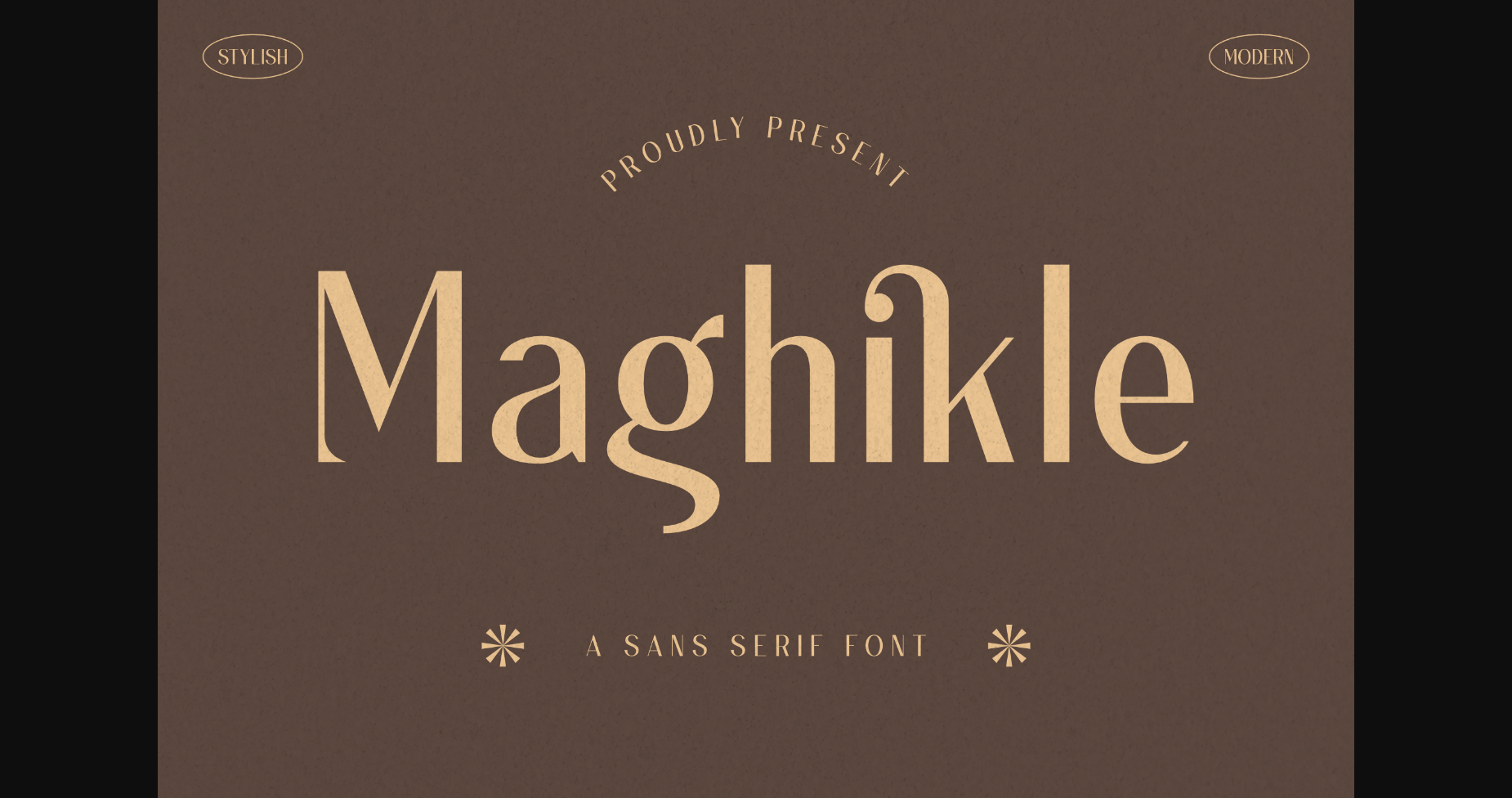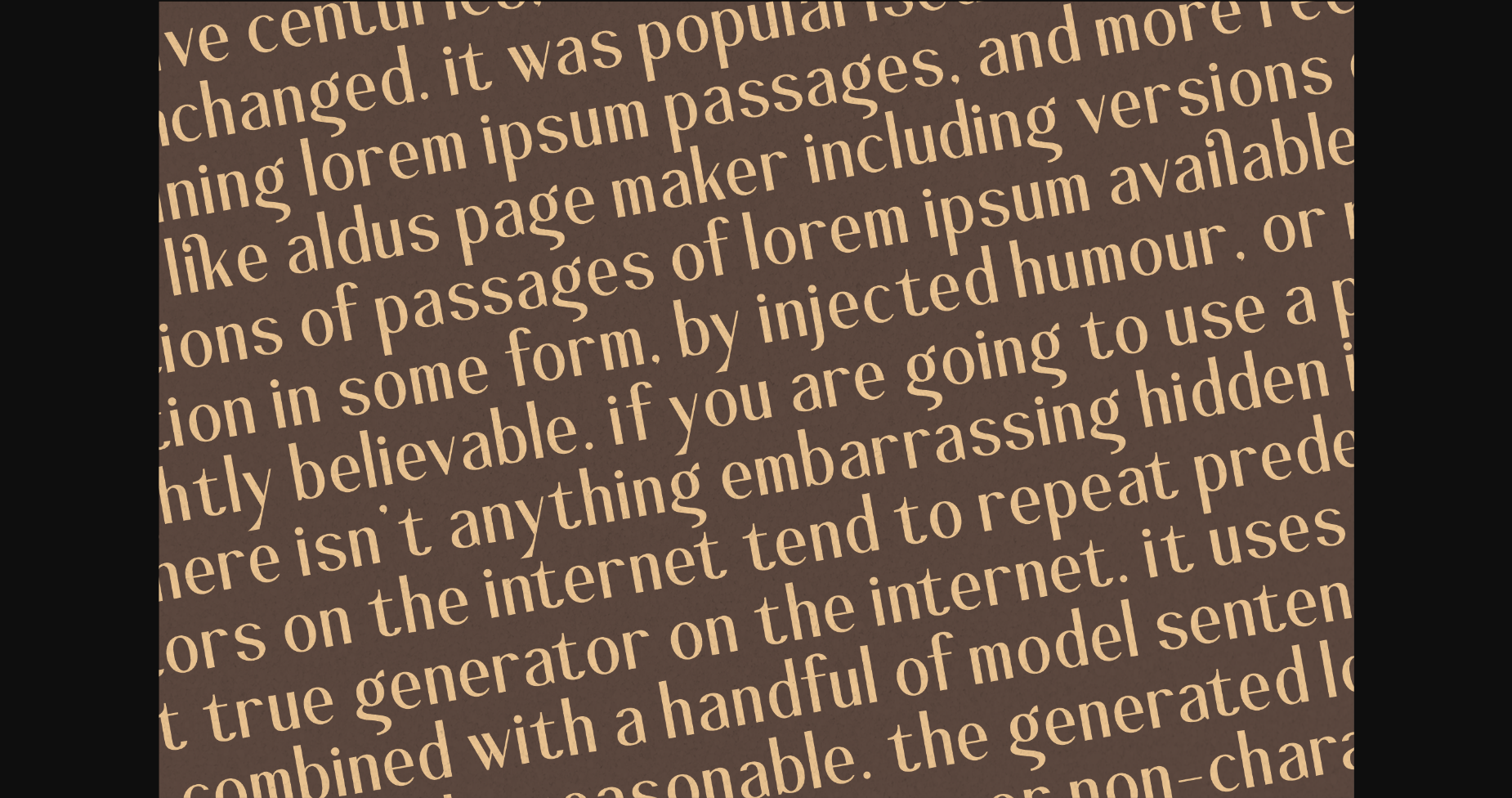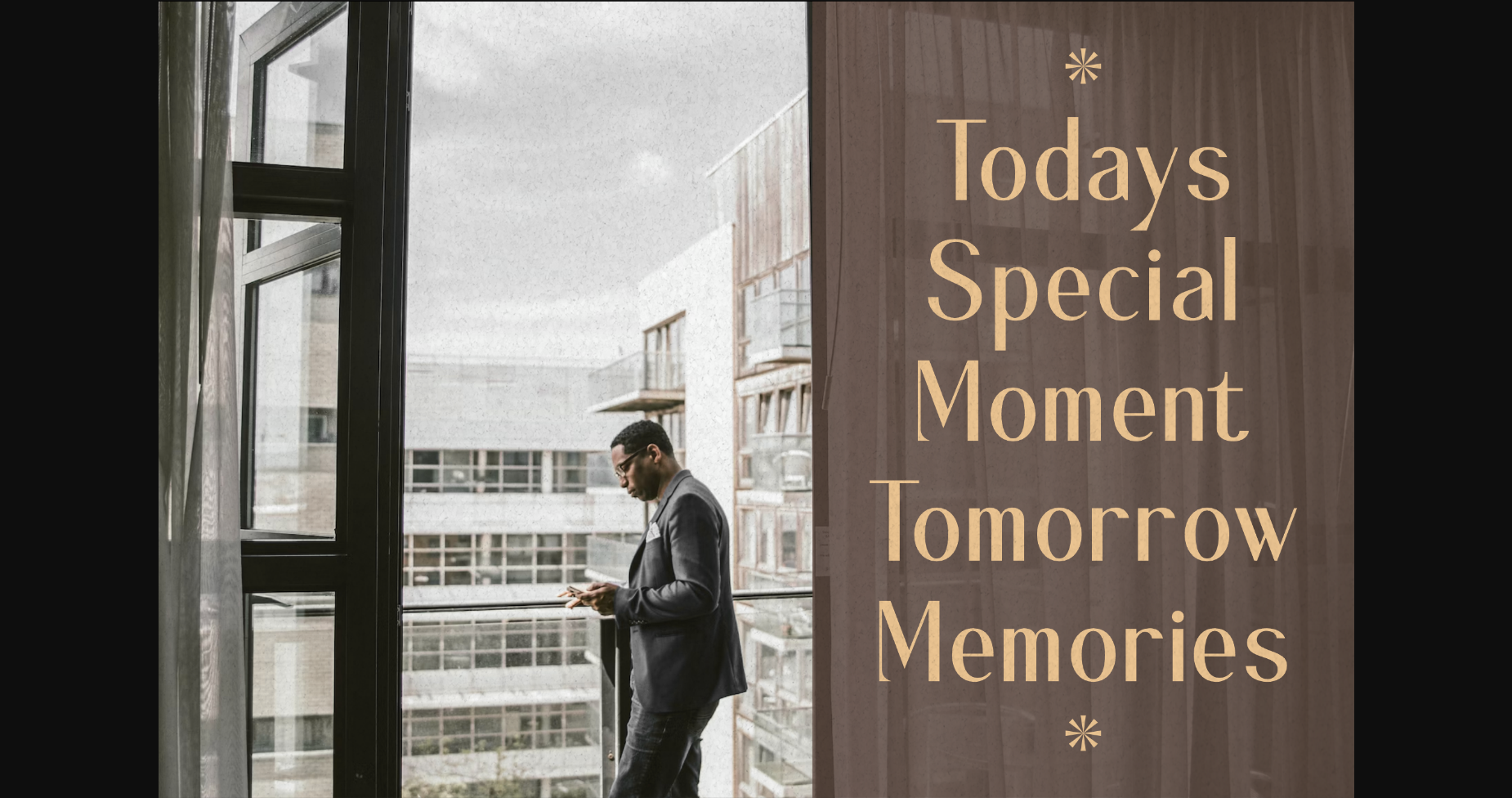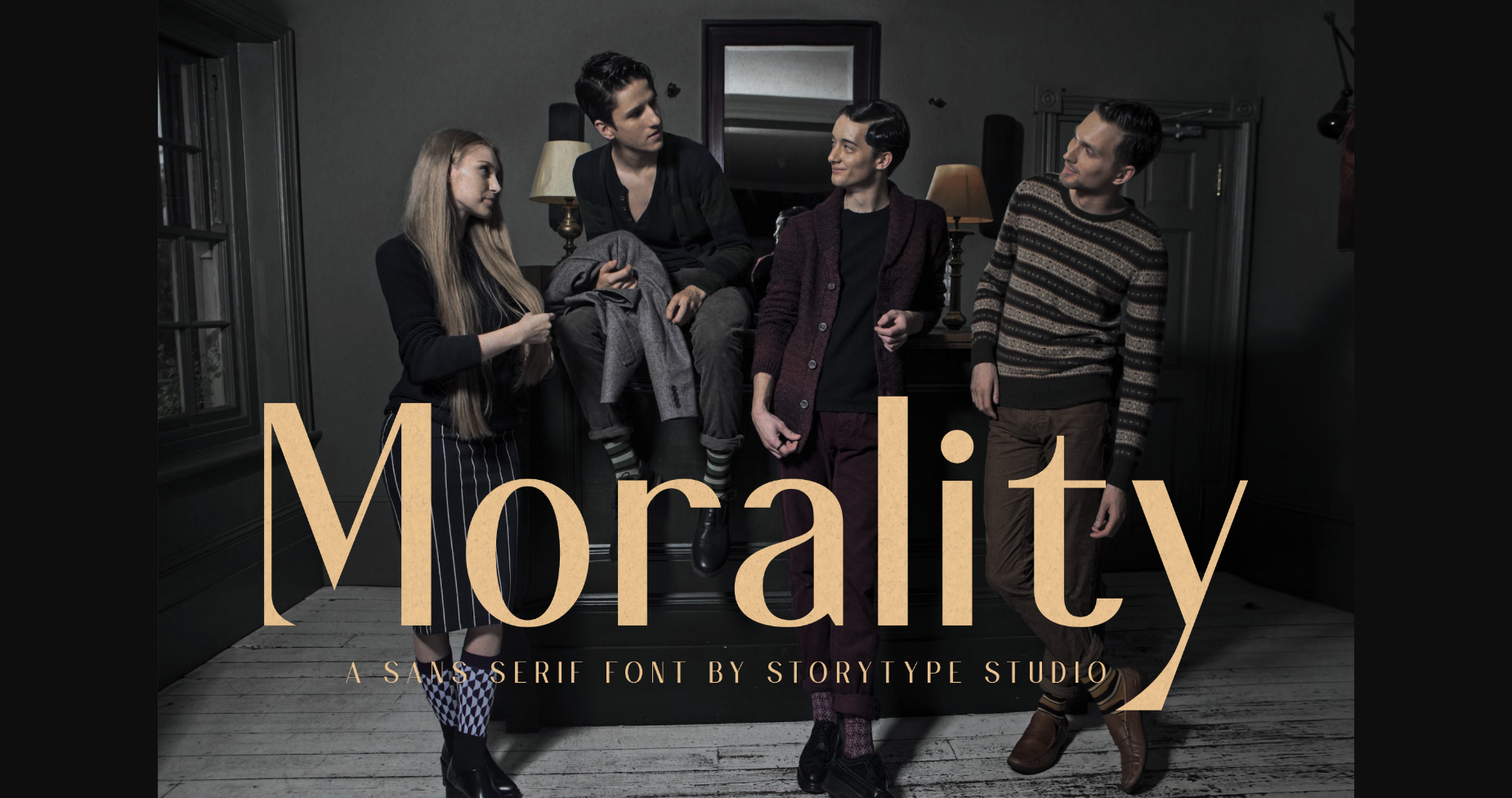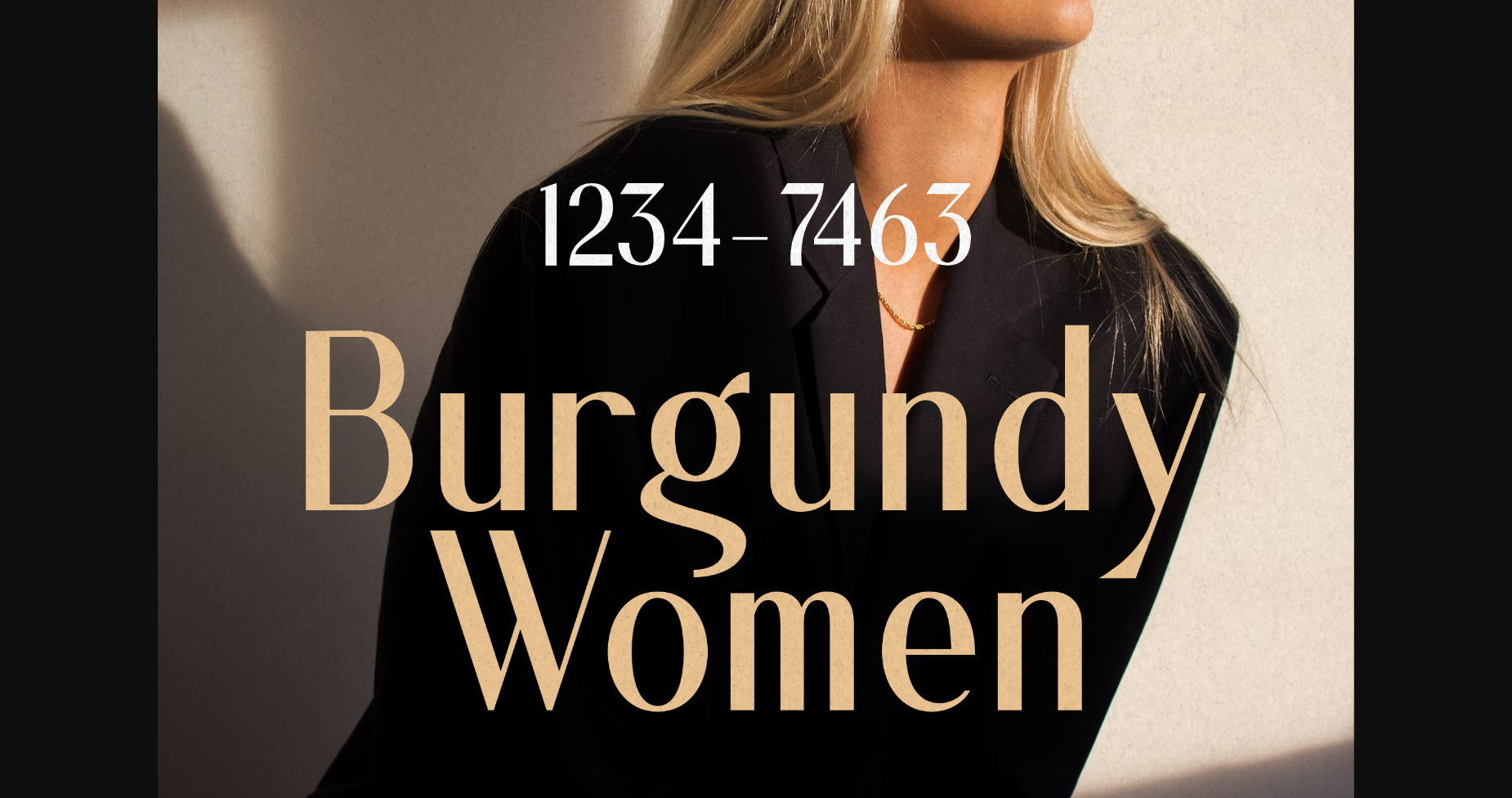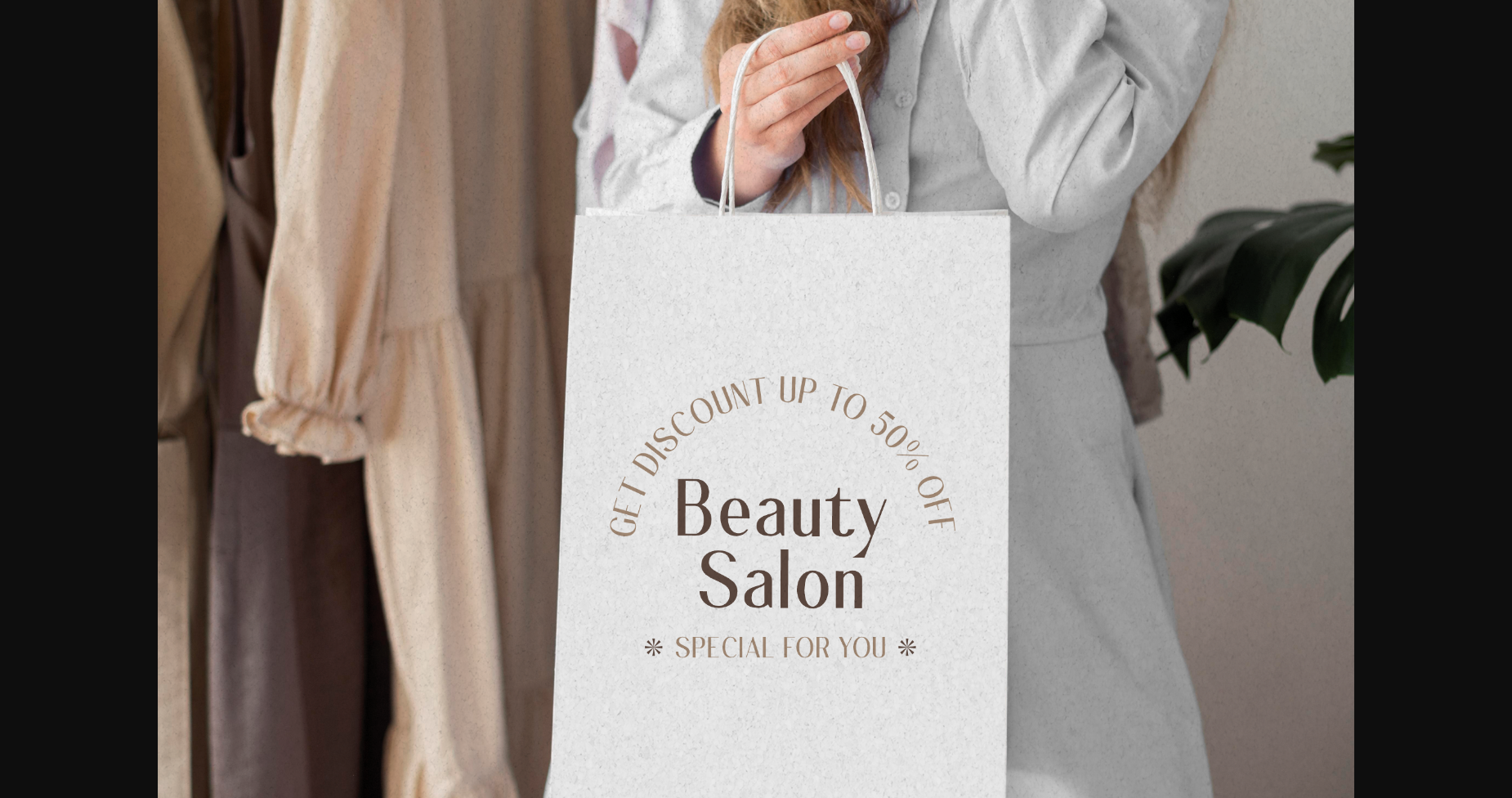
About Maghikle Font
Maghikle is a modern and stylish sans serif font that has its own unique appearance. This typeface is perfect for an elegant and luxurious logo, fashion brands, magazines, apparel, lettering, quotes, and so much more.